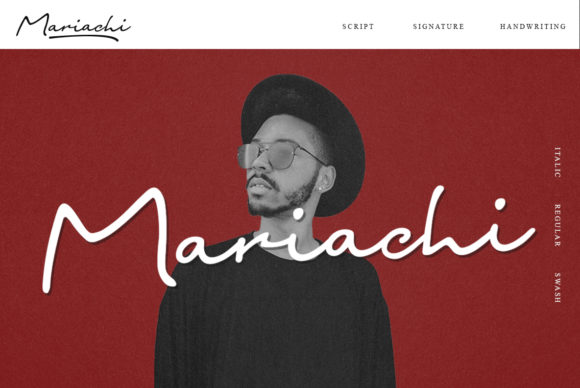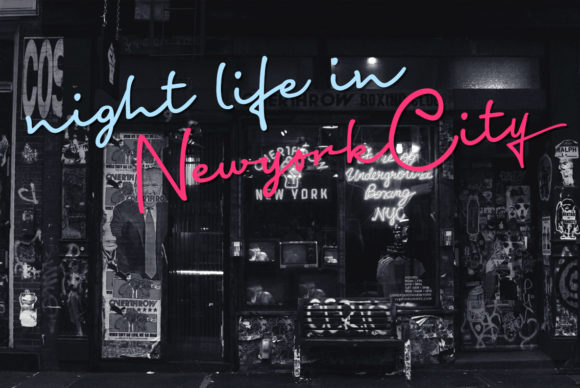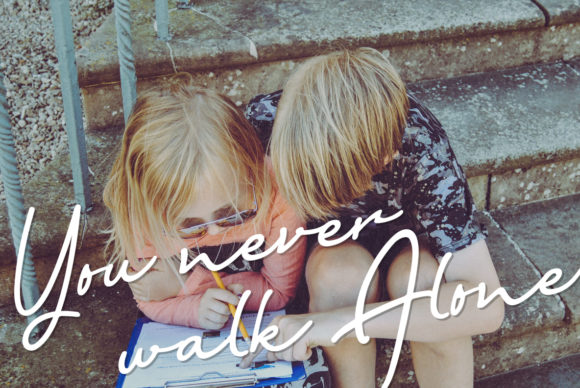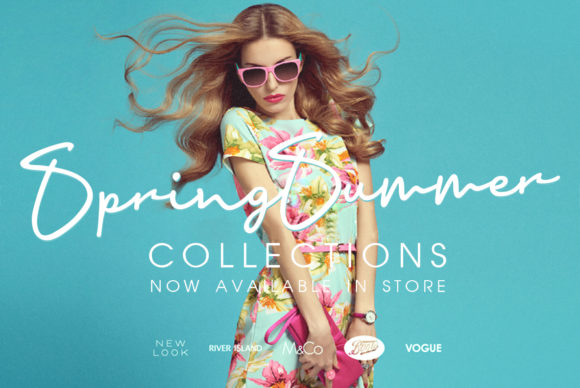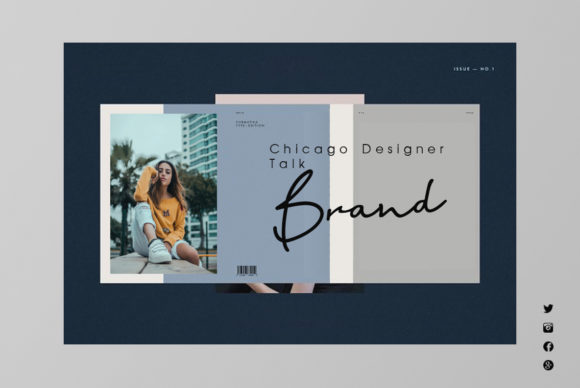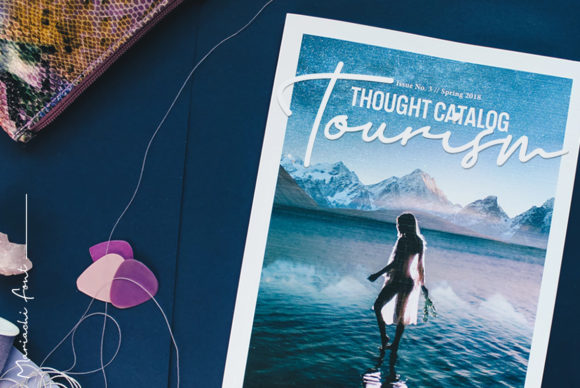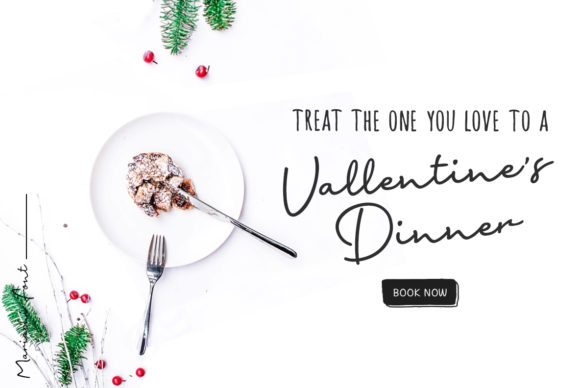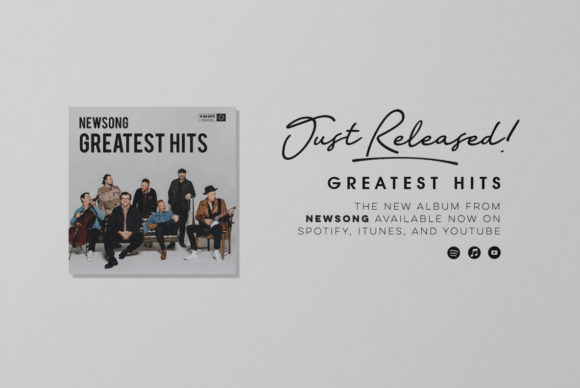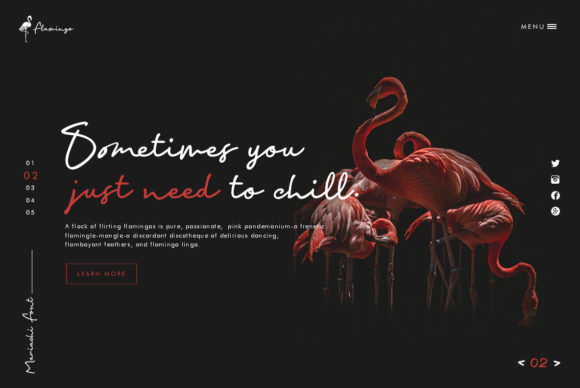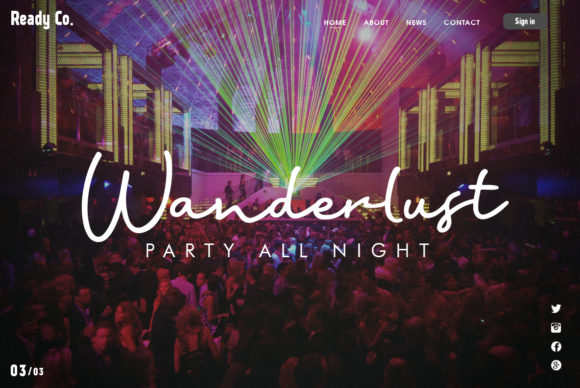
Mariachi Script Font
About Mariachi Script Font
The Mariachi is a smooth pen script with large display capitals and small but legible lowercase letters. It’s ideal for a logo, branding, signature, poster, banner, website, wedding invitation, name card or any display use.
It’s great for typing headlines in a magazine – it’s stylish but legible enough due to its smooth shapes.